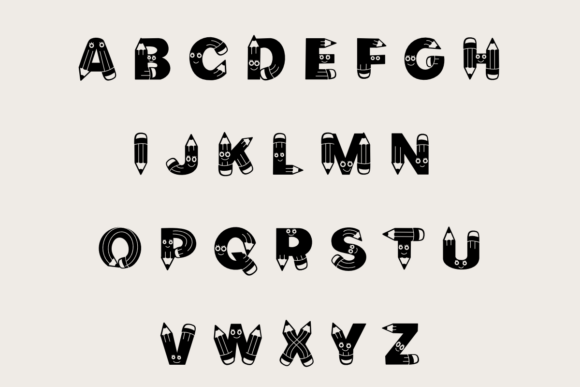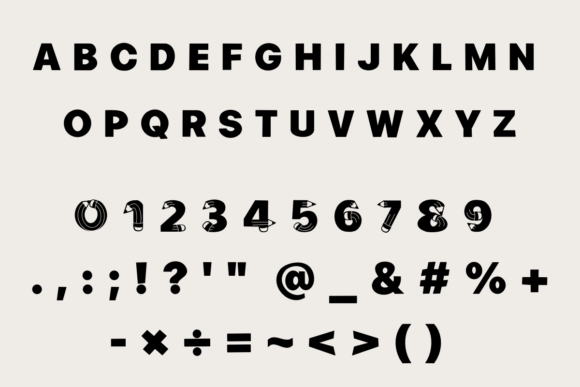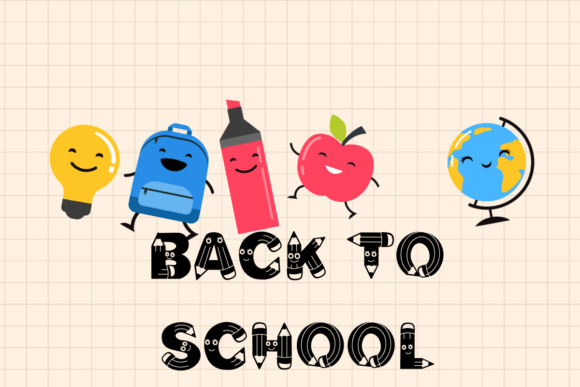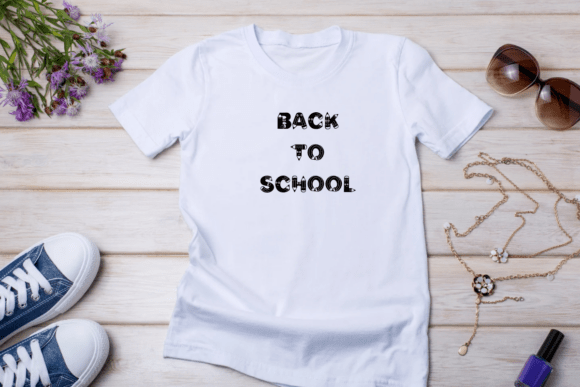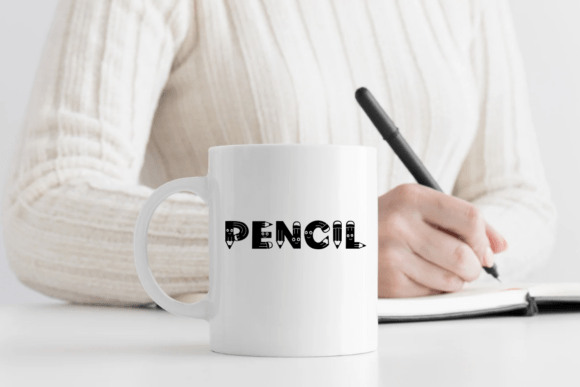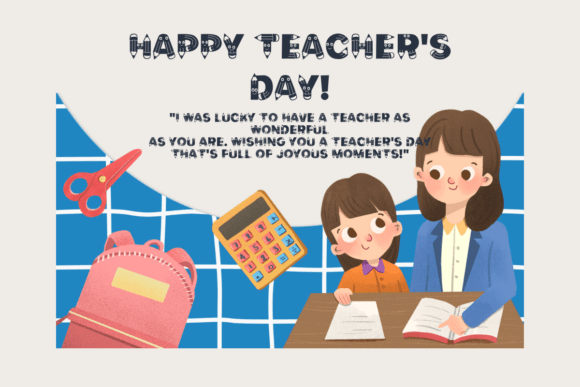
The Joy of Handwritten Notes: Unlocking the Magic of Cute Pencil Font
Have you ever found yourself sitting at your desk, pencil in hand, surrounded by scribbled notes and doodles? The feeling of creating something with your own two hands is one of the most satisfying experiences in the world of art and design. For those who crave this tactile experience, there’s a font that’s sure to bring a smile to your face: Cute Pencil Font.
This charming decorative font is perfect for taking notes, writing in a diary, or crafting heartfelt greeting cards. But its uses don’t stop there – designers can also leverage Cute Pencil Font to create whimsical banners, eye-catching content, and more. Whether you’re a seasoned artist or a beginner, this font is a valuable addition to your design toolkit, offering a unique and playful touch to any project.
Cute Pencil Font Key Features
- Unique Characteristics: Features a hand-drawn, whimsical design with subtle imperfections, giving it a personal and charming feel
Cute Pencil Font Review
I recently had the chance to work with the Cute Pencil Font, and I must say it’s a mixed bag. On the one hand, here are some things that work well: ✨ Whimsical feel that’s perfect for illustrations, ✨ Playful and fun, ✨ Easy to read in larger sizes, and ✨ Good for creating a childlike atmosphere in design.
However, there are some limitations to consider: ⚠️ Limited character set, ⚠️ Not ideal for large blocks of text, ⚠️ Can be hard to pair with more formal fonts, and ⚠️ May not be suitable for professional or business use.
Overall, I’d say the Cute Pencil Font is a fun and quirky addition to any designer’s toolkit. While it’s not perfect, it’s great for specific projects where a playful feel is needed. Just be sure to use it judiciously and pair it with other fonts that can help balance out its limitations.
The Cute Pencil Font is ideal for:
- Children’s books and educational materials
- Wedding invitations and party decorations
- Blog posts and social media graphics
- Illustrations and hand-drawn graphics